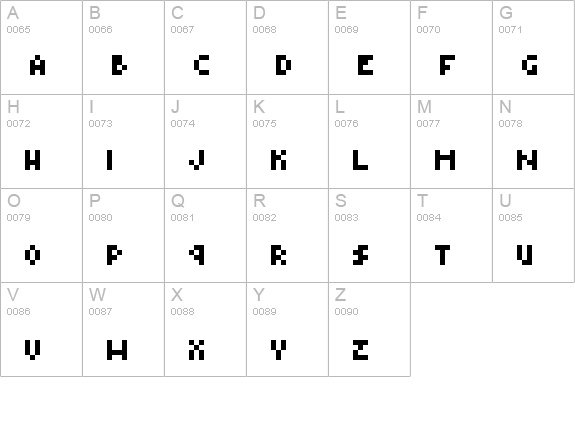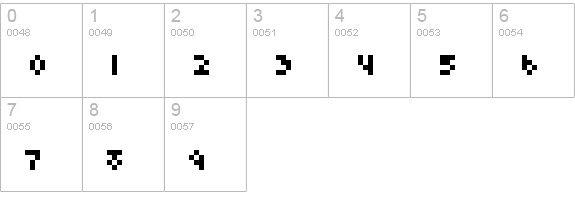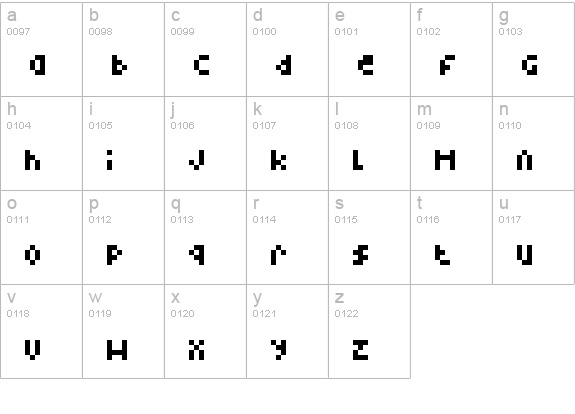
Type Four Font Details
The Type Four font is a stunning display font that captures attention with its unique and artistic design. It is a perfect choice for those seeking a font that stands out and adds a touch of elegance to their projects. This font exudes a sense of sophistication and creativity, making it ideal for various design purposes such as logos, headlines, posters, and more. Its bold and stylish letterforms captivate the eye and leave a lasting impression. One of the best things about the Type Four font is that it is freely available to download at FontsMarket.com. This means that you can easily obtain this remarkable font without any cost. Whether you are a professional designer or a creative enthusiast, you can now have access to this exceptional font and incorporate it into your projects effortlessly. The Type Four font boasts a wide range of characters, including uppercase and lowercase letters, numerals, punctuation marks, and special symbols. Its versatile nature allows you to experiment and create unique typographic compositions that convey your intended message effectively. With its high-quality design and attention to detail, the Type Four font ensures optimal legibility even at smaller sizes. This makes it a perfect choice for various applications, including websites, print materials, branding, and more. With its free availability at FontsMarket.com, the Type Four font is a valuable addition to any designer's toolkit. Download it today and elevate your designs to new heights with this exquisite and versatile font.